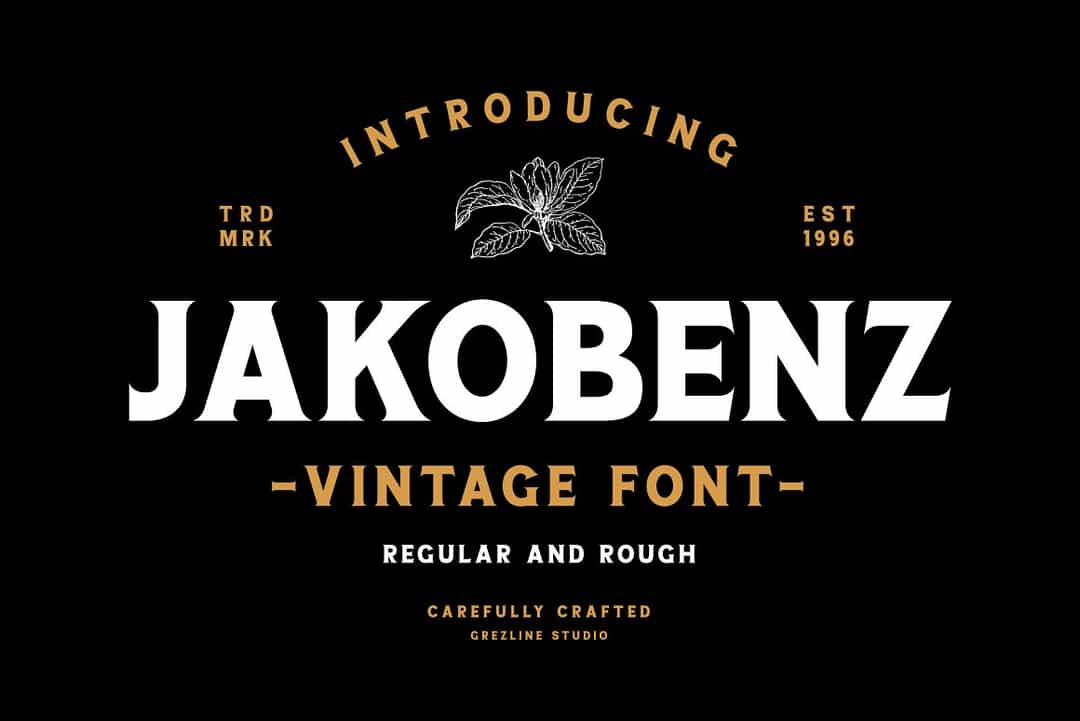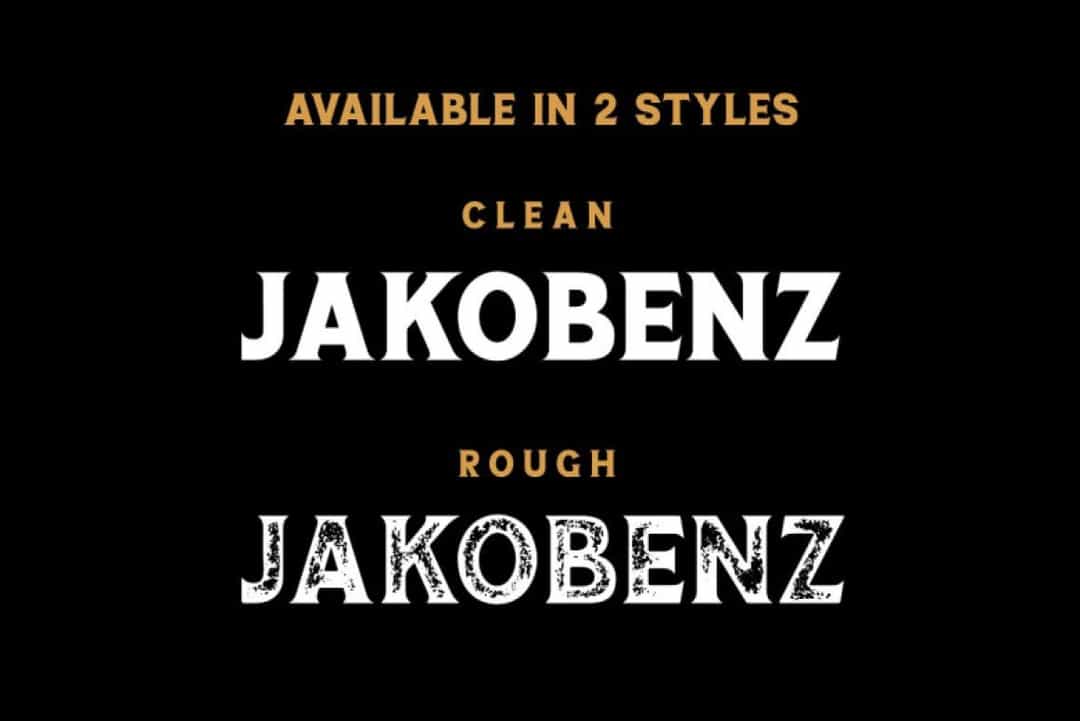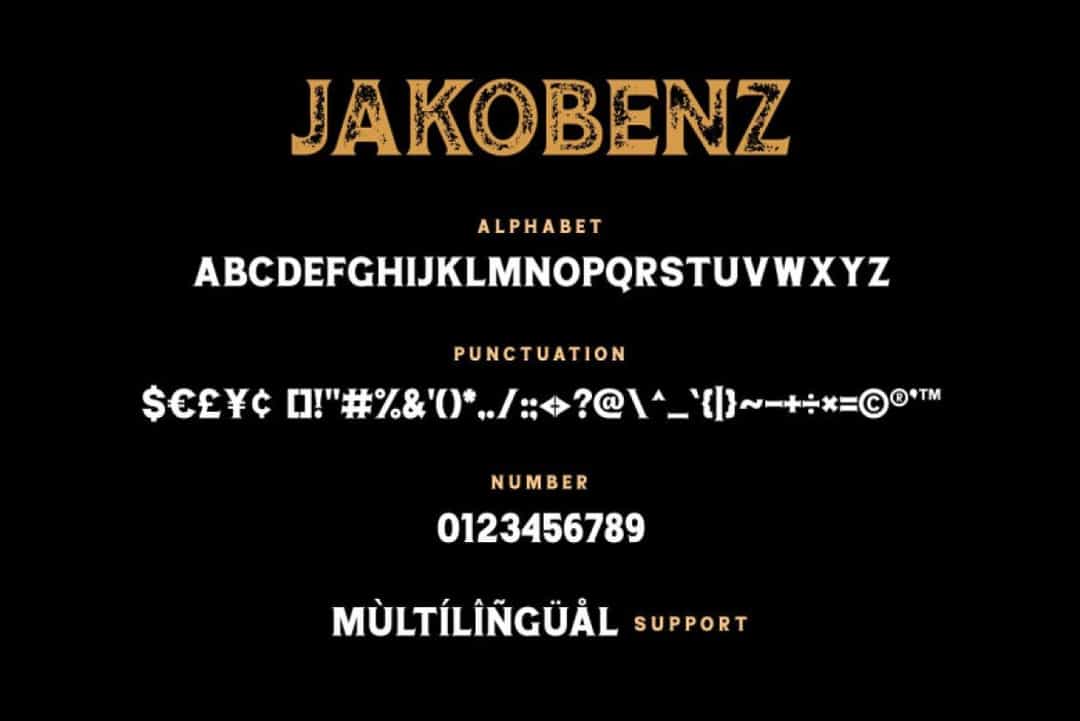
Jakobenz is an elegant classic serif typeface carefully crafted and available in two versions – Clean and Rough versions. Jakobenz can be used as an eye-catching logo, typography badge design, packaging for products, invitation designs, quotes, t-shirt design or label poster, special events posters or anywhere that requires vintage touches.